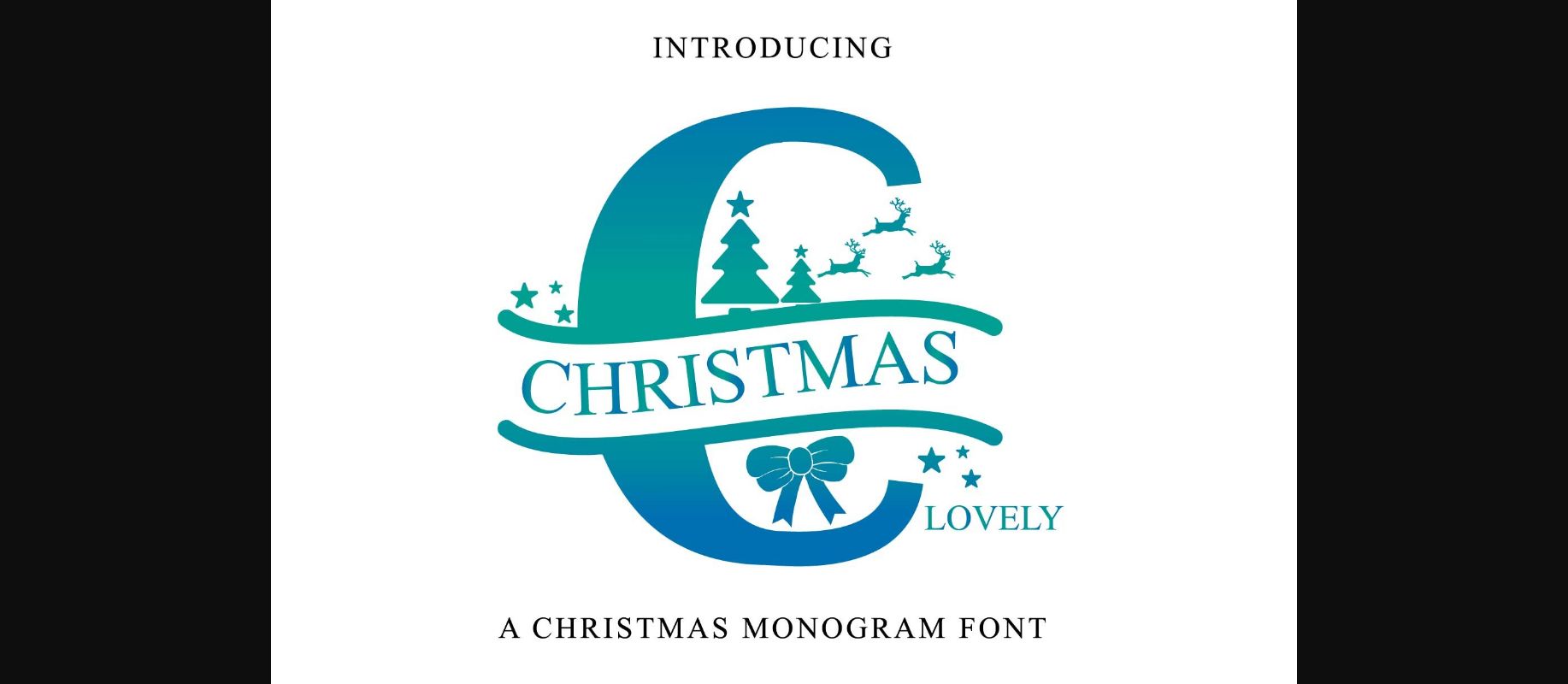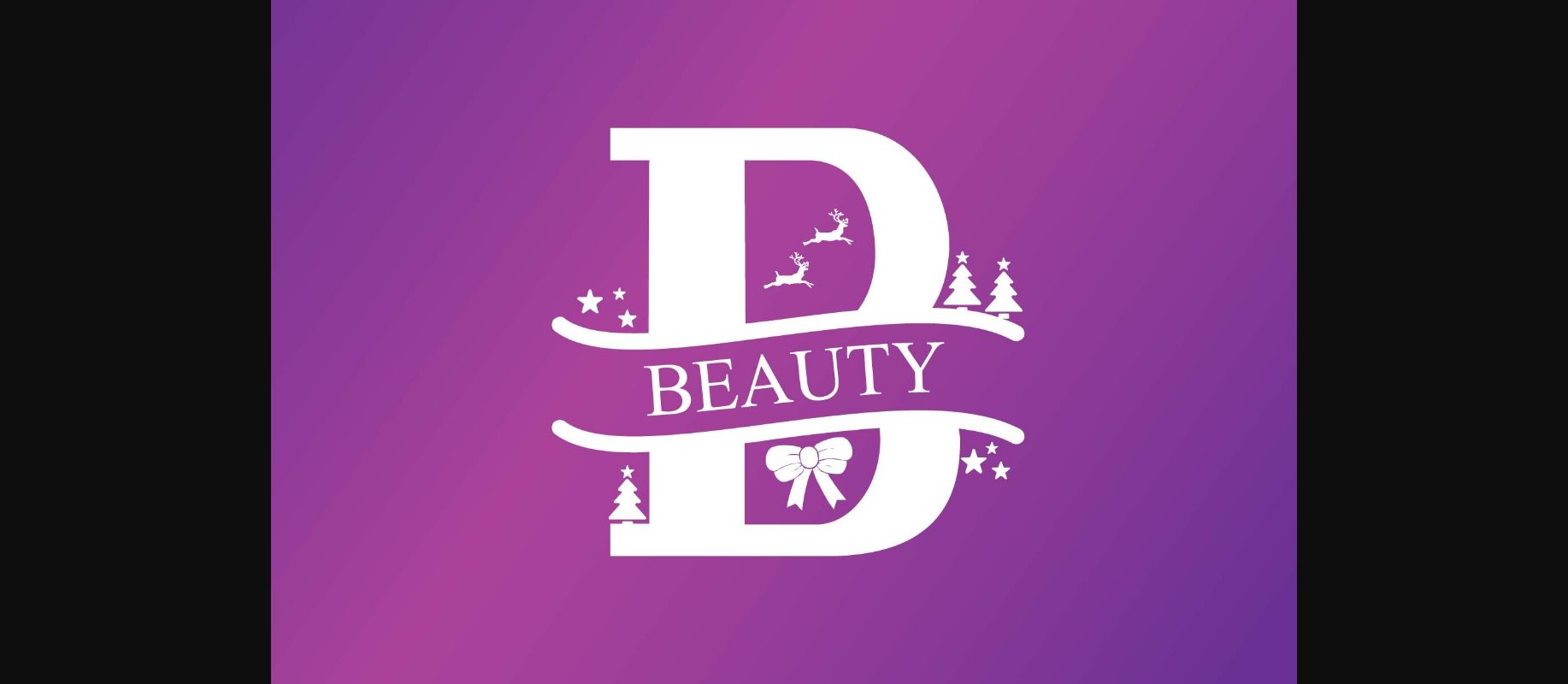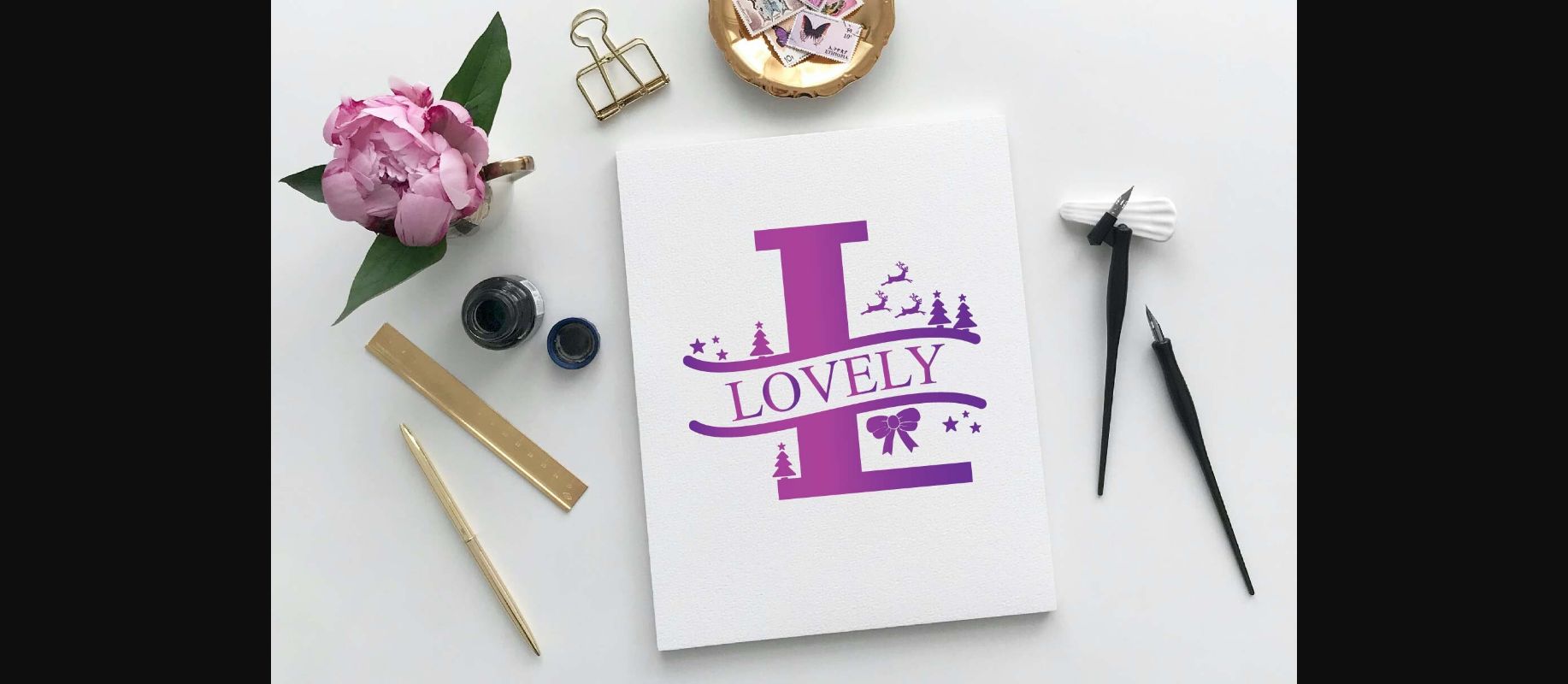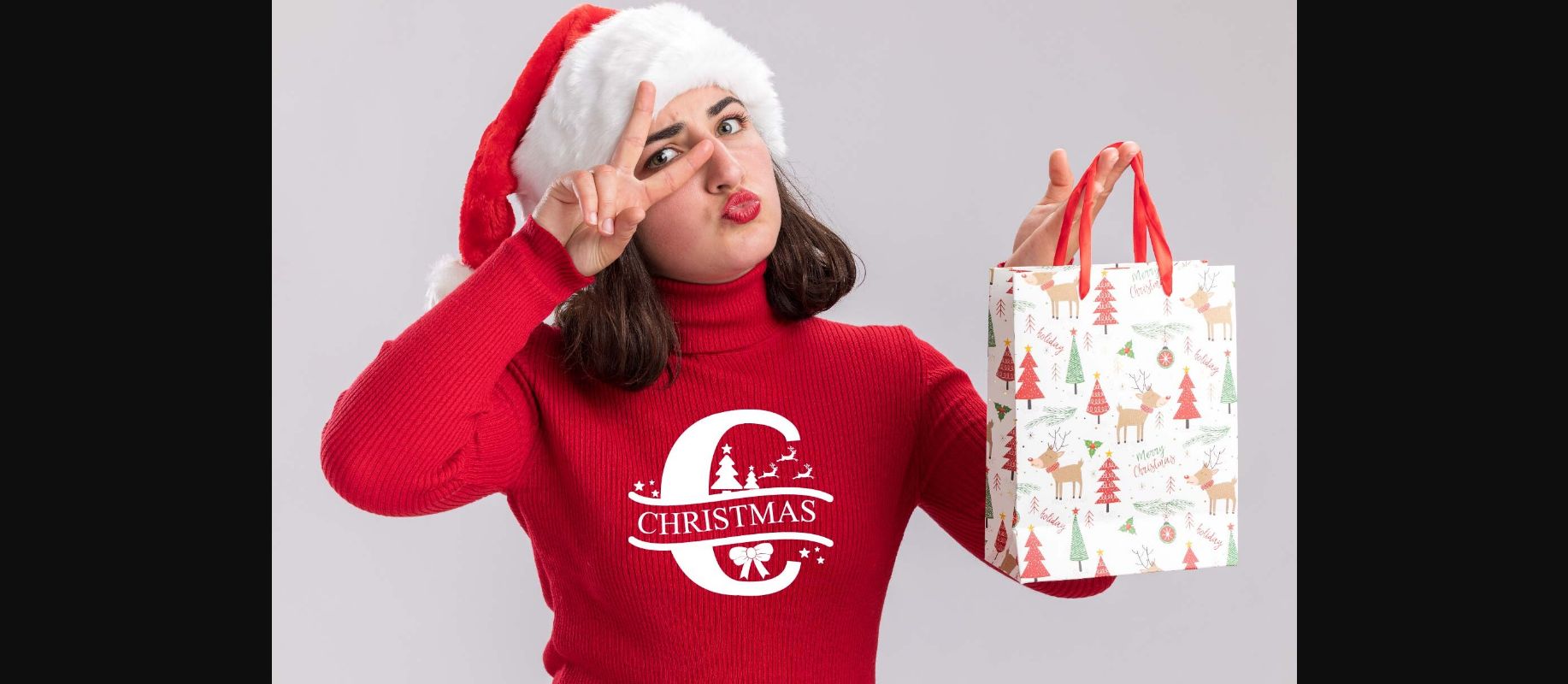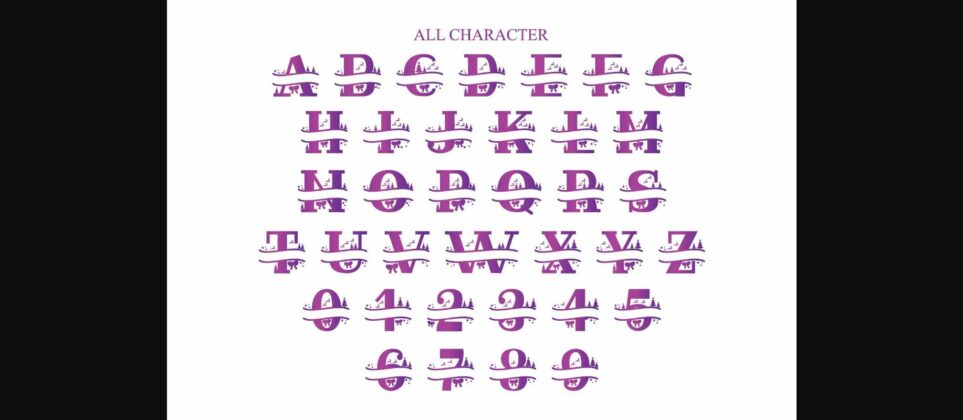
About Christmas Lovely Monogram Font
Christmas Lovely is beautiful and fun decorative font. Fall in love with its authentic feel and use it to create gorgeous design. This font will be an incredible asset to your fonts’ library, as it has the potential to elevate any creation.